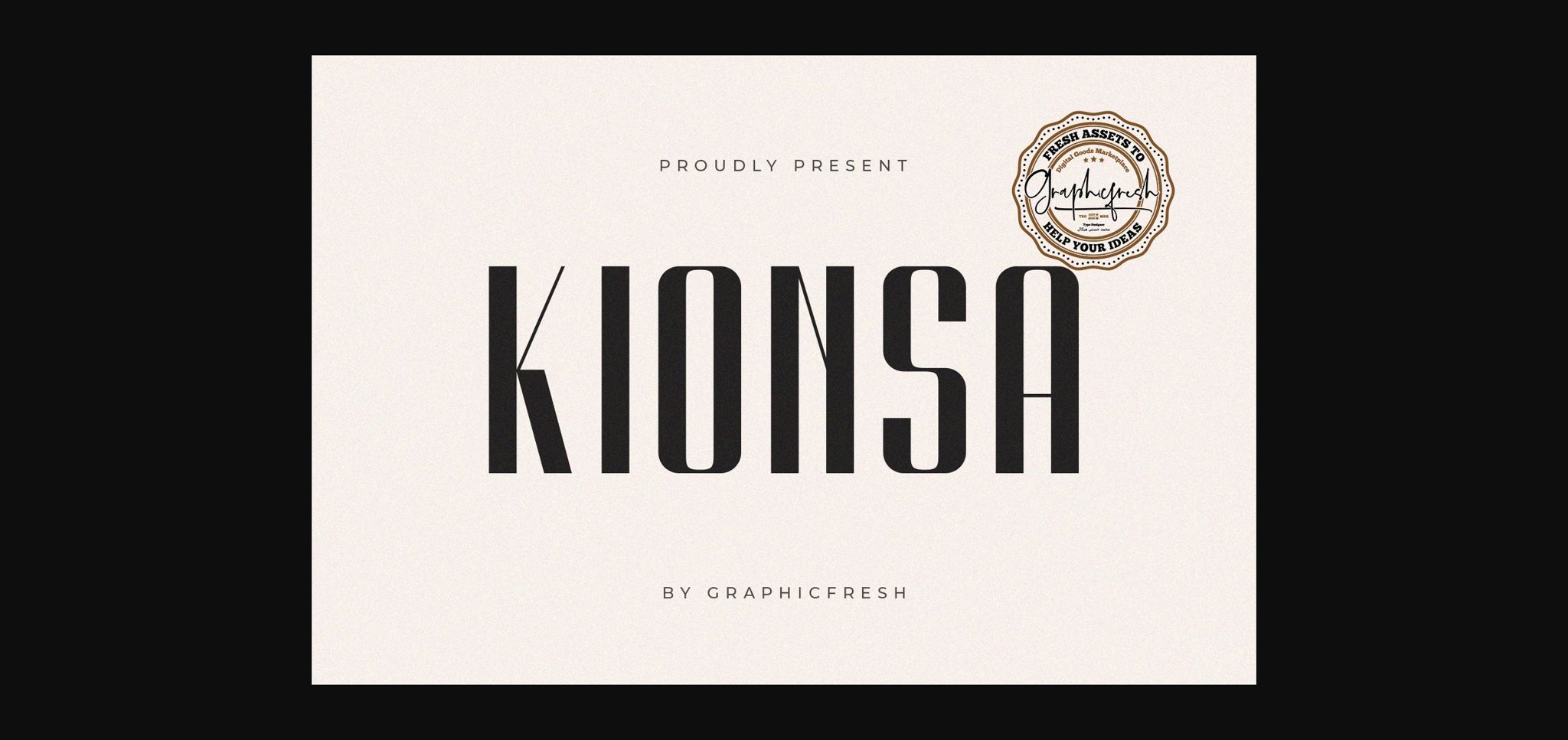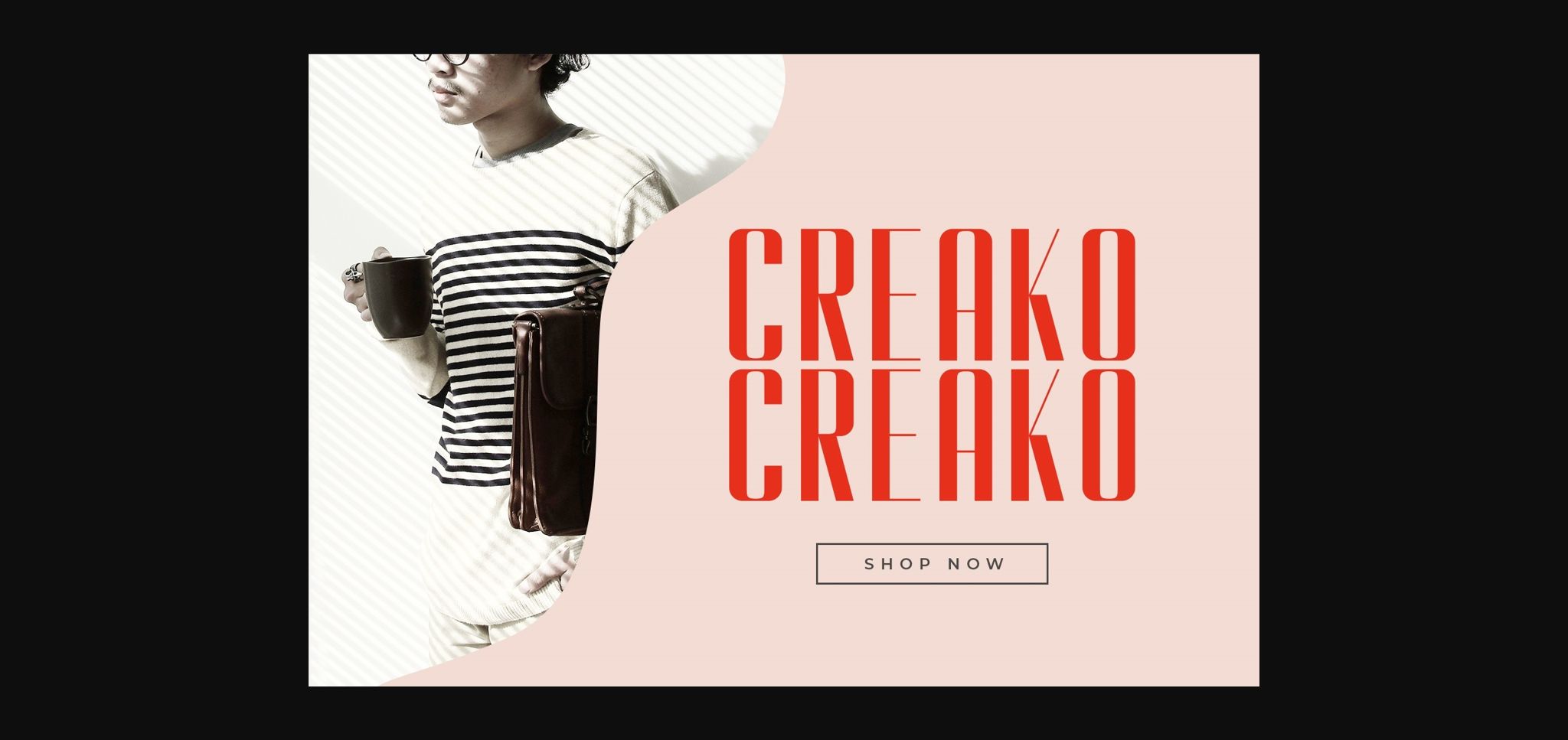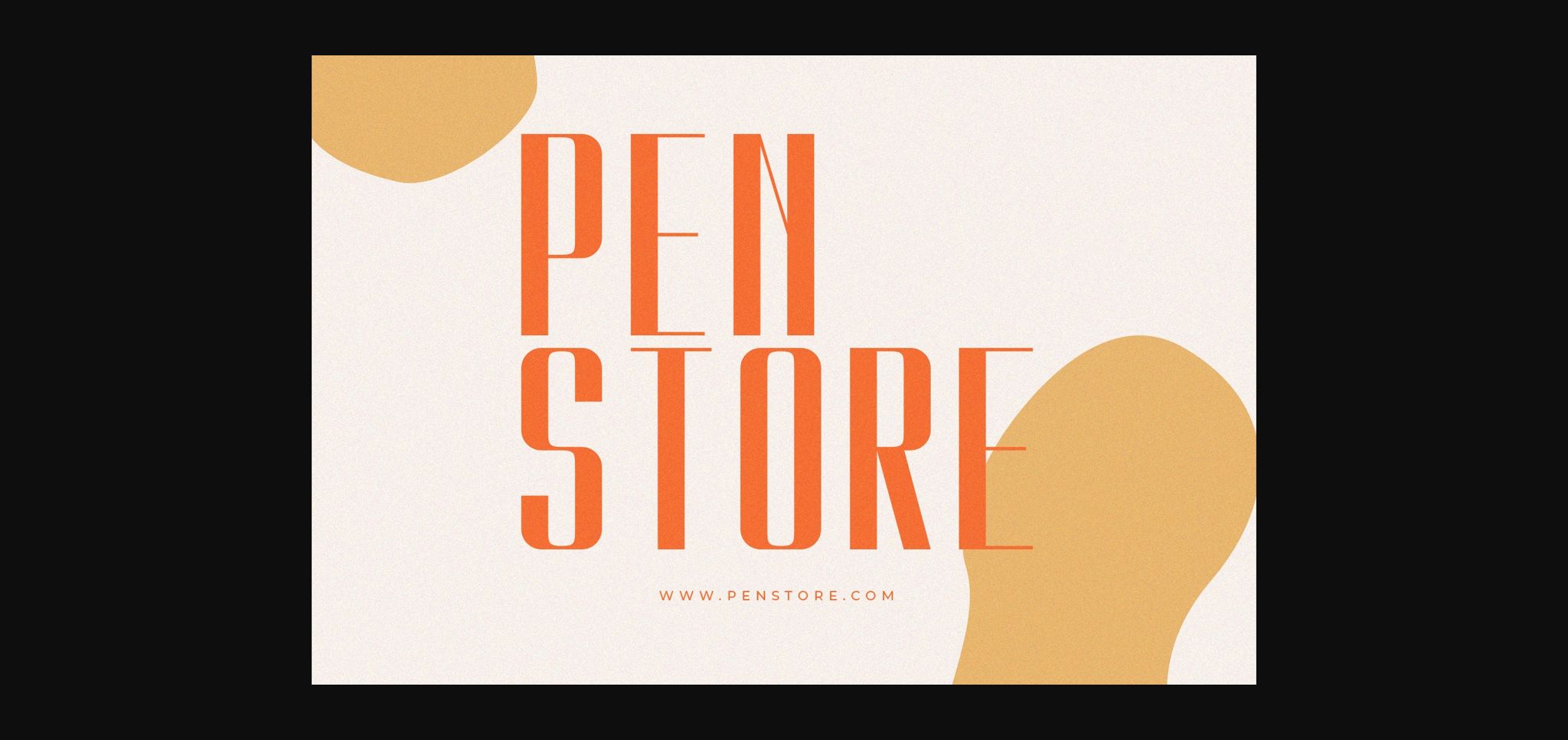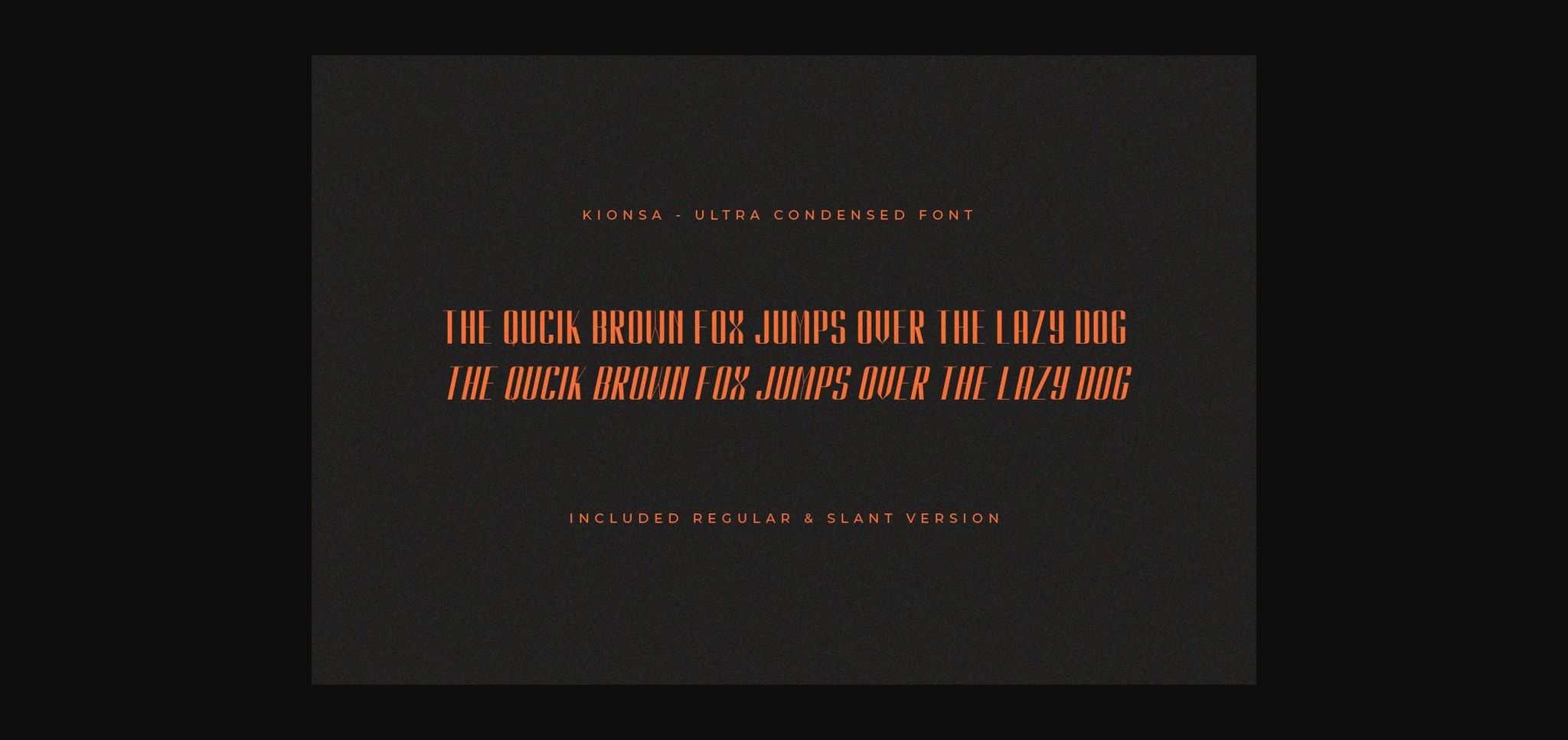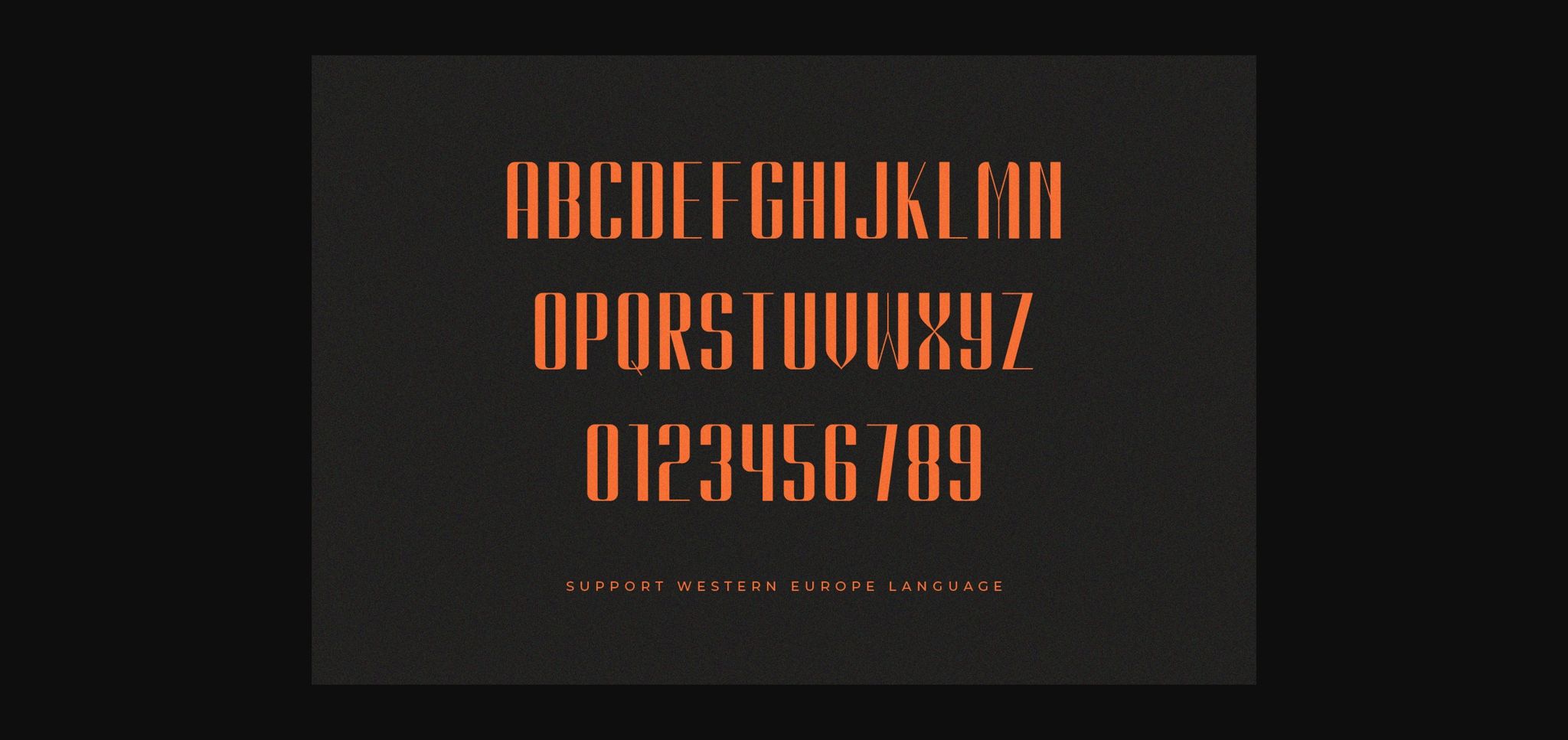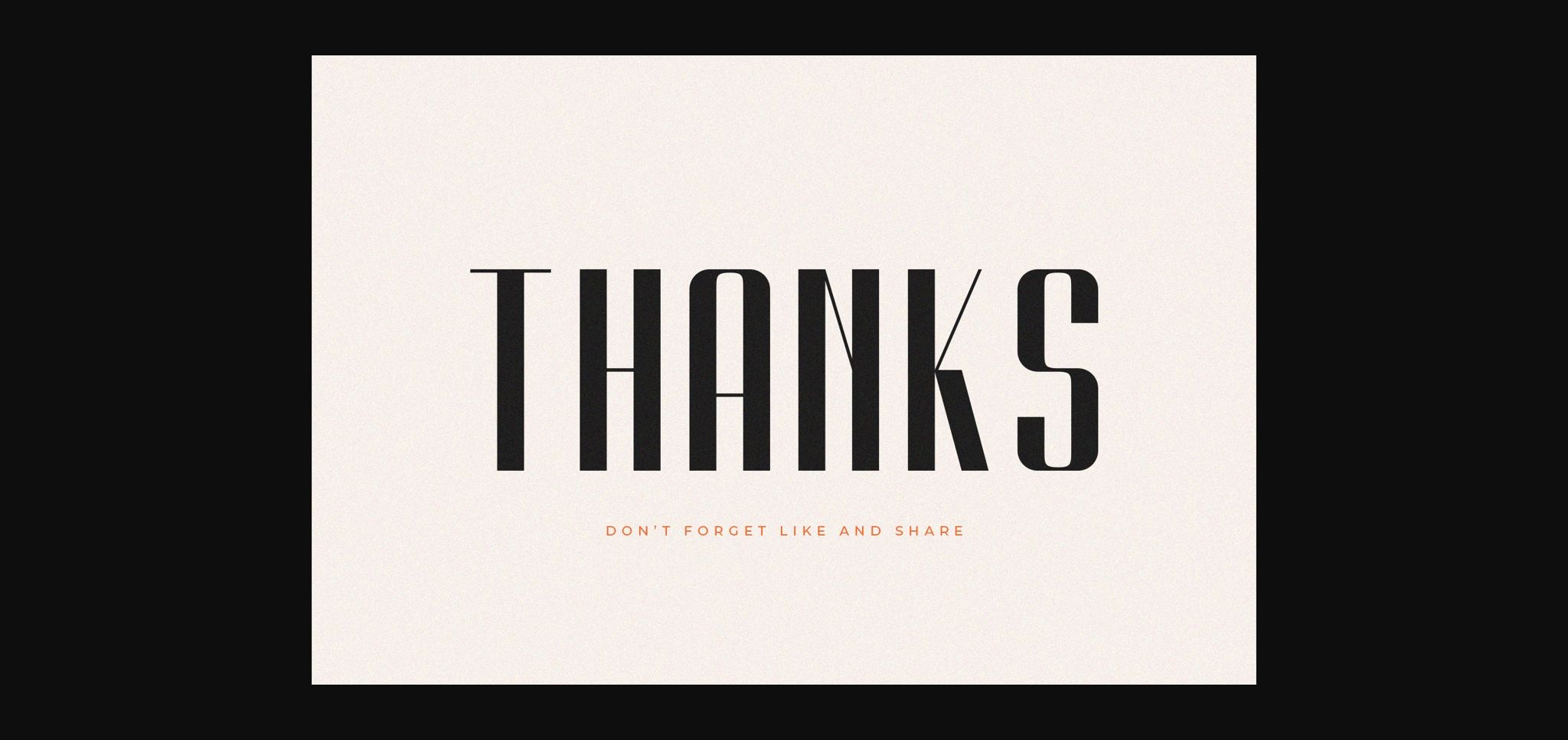
Kionsa Font
About Kionsa Font
Kionsa looks bold, yet sophisticated and features chunky and extended characters that will look particularly adept when used in logos, branding, packaging design, and much more. This masterfully designed sans serif is a true must-have.